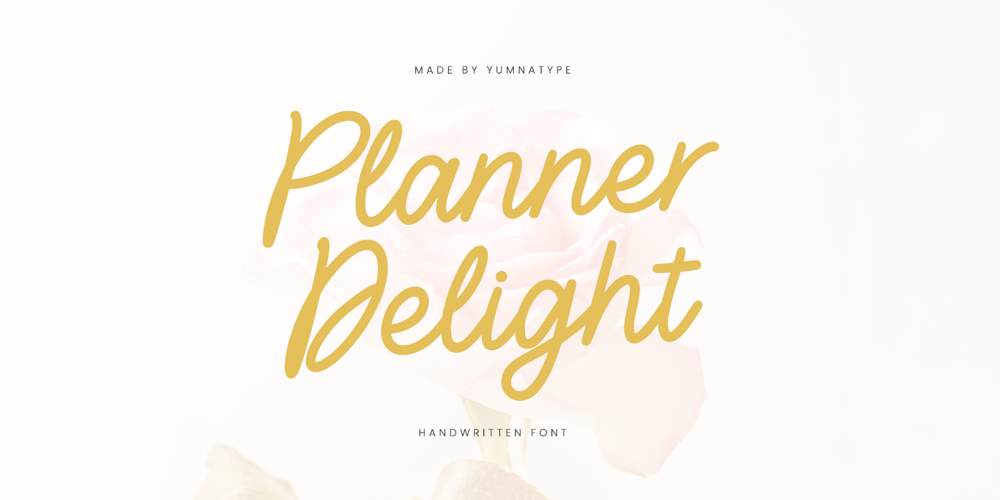
Planner Delight Font Family was designed by Donis Miftahudin and published by Yumna Type. Planner Delight contains 1 styles and family package options. Planner Delight is a delightful handwritten font that evokes the charm of doodling in a beloved planner. With letters intricately connected to each other, this font captures the whimsical flow of handwritten script, adding a touch of warmth and personality to your designs.Crafted with a thin weight, Planner Delight exudes a sense of delicacy and elegance. Adding to its unique charm, some letters in Planner Delight feature swinging ends, reminiscent of the playful flourishes often found in handwritten script. These subtle details add a sense of movement and whimsy to the font, enhancing its handwritten charm. In addition, enjoy the features here.Features: Ligatures Multilingual Supports PUA Encoded Numerals and Punctuations Planner Delight fits in headlines, logos, posters, flyers, branding materials, greeting cards, print media, editorial layouts, and many more designs. Find out more ways to use this font by taking a look at the font preview.Thanks for purchasing our fonts. Hopefully, you have a great time using our font. Feel free to contact us anytime for further information or when you have trouble with the font. Thanks a lot and happy designing.